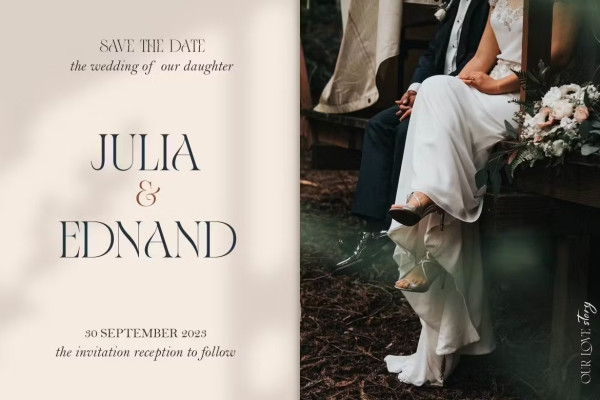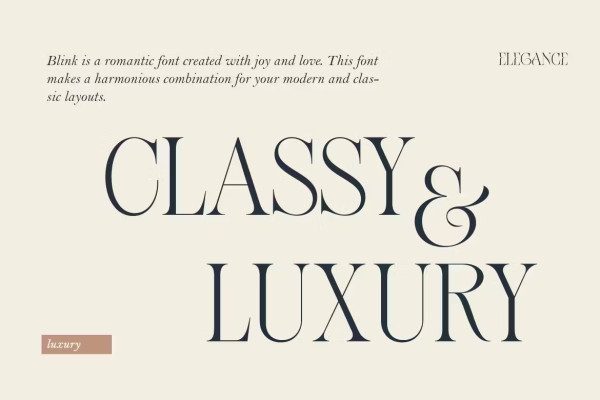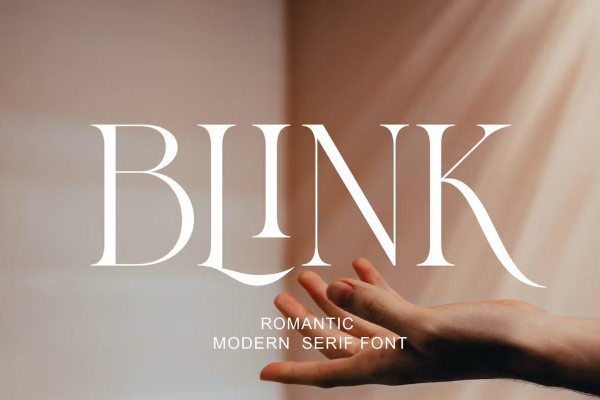
Blink Font
Blink Font is a romantic font created with joy and love. This font is a harmonious combination for your modern and classic layouts. Perfect for any luxury design, like hotel logo, restaurant menu, restaurant poster or website, wedding invitation, etc.